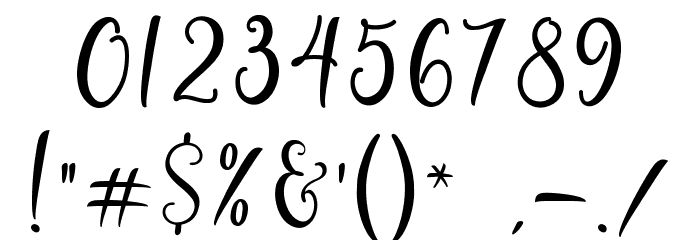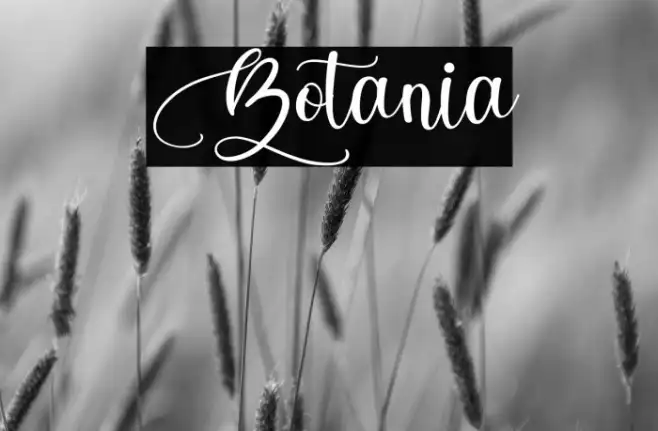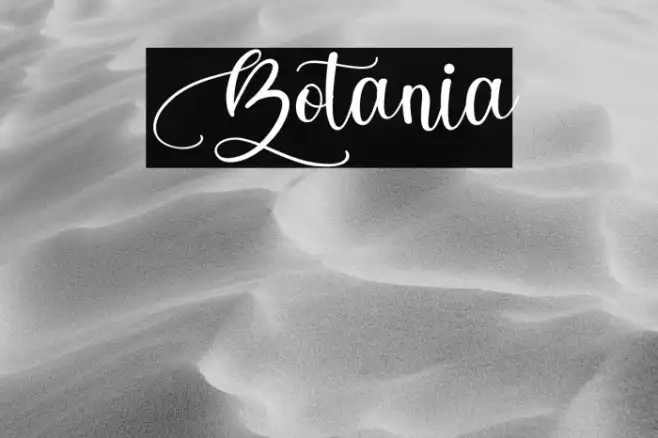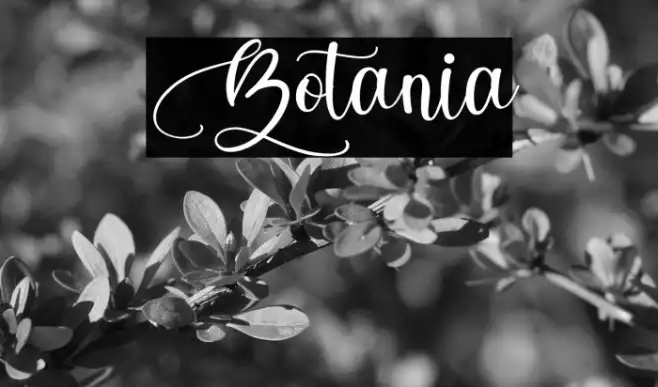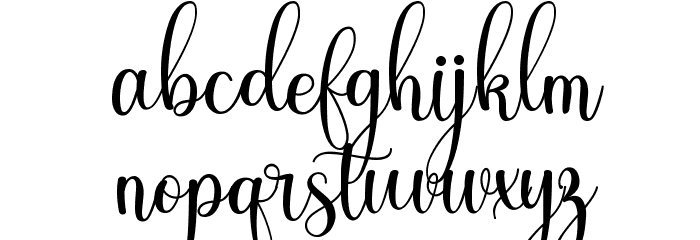
Botania Font
This font exudes elegance and sophistication with its flowing, cursive style. The uppercase letters are adorned with intricate loops and swirls, giving them a decorative flair. The lowercase letters maintain a consistent fluidity, with some characters featuring unique ascenders and descenders that add to the font's charm. The numerals are bold and slightly rounded, complementing the overall script style. Special characters are thoughtfully designed to match the ornate nature of the alphabet. This font is perfect for projects that require a touch of class and creativity.
An elegant and sophisticated cursive font with decorative swirls.
• Proposed Projects: Ideal for wedding invitations, elegant branding, greeting cards, and high-end product packaging.